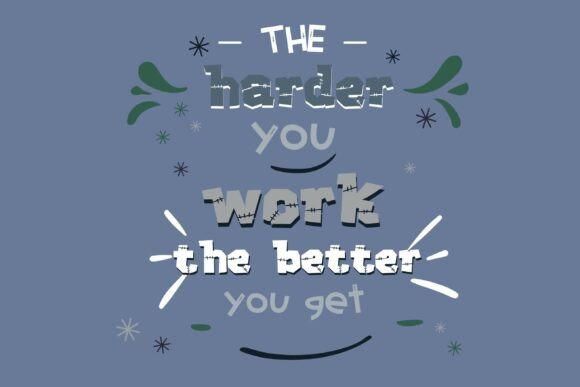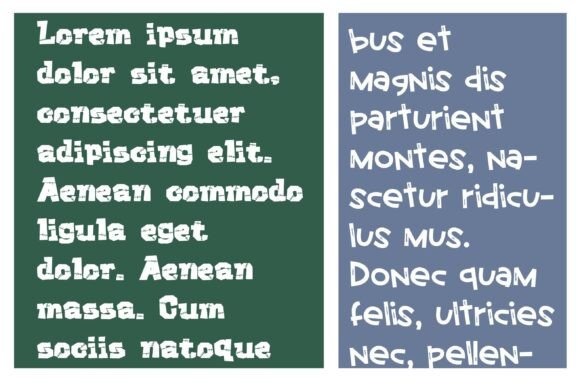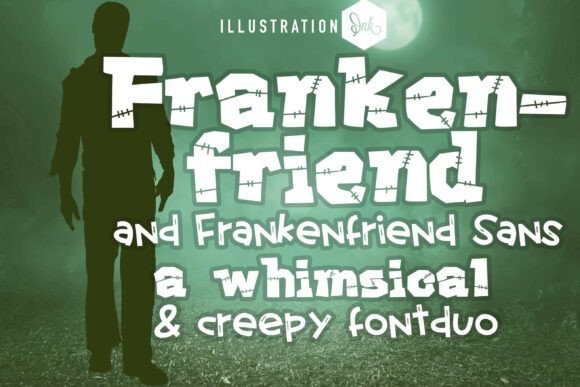
Frankenfriend is a playful and spooky font duo that brings a touch of fun fright to your Halloween and monster-themed projects.
This whimsical typeface includes two styles: the stitched and chunky Frankenfriend, and the clean and quirky Frankenfriend Sans Both are perfect for a wide range of creative usesβ€”from kids’ party invitations and Halloween decor to spooky classroom projects, DIY crafts, and themed merchandise.